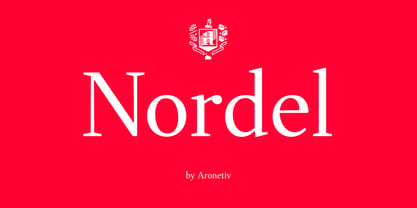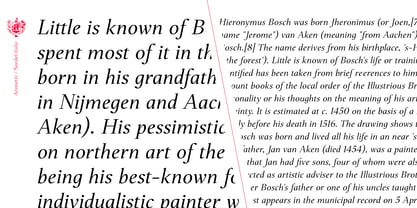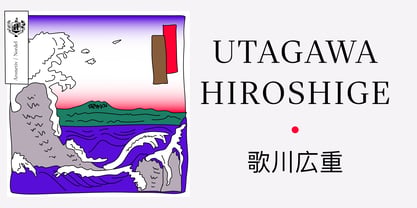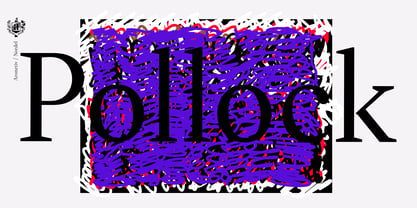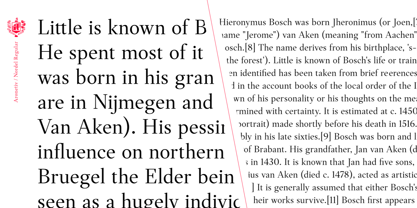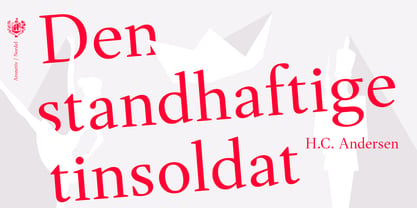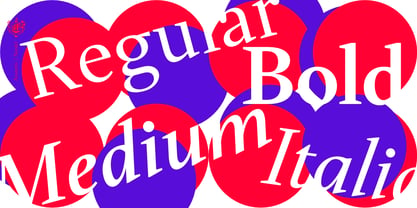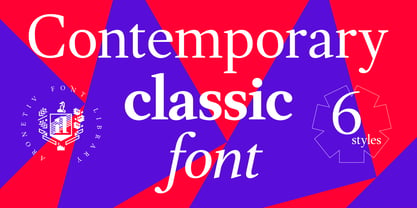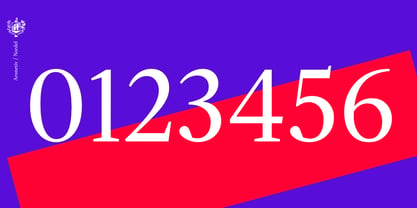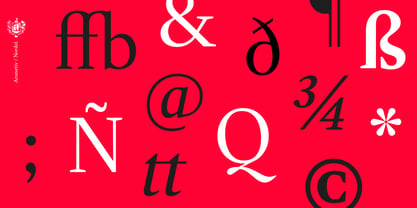
Nordel
Die Schriftfamilie Nordel wurde von Aleksey Popovtsev entworfen und von Aronetiv veröffentlicht. Nordel enthält 6 Stile und Familienpaketoptionen. Mehr über diese Familie
Nordel exemplifies a modern interpretation of classic serif typefaces, drawing inspiration from the timeless elegance of Caslon. It retains the balanced proportions and refined contrast typical of old-style fonts, while introducing sharper details and angular forms that imbue it with a distinctly contemporary edge. This blend of historical depth and clean precision positions Nordel as an ideal choice for editorial design, branding, and various projects that seek a sophisticated yet progressive aesthetic. Its versatility across different weights enhances its applicability, making it suitable for both print and digital platforms.
Aronetiv was founded in 2019 in Kyiv. It employs one person: artist and graphic designer Oleksii Popovtsev. Once Oleksii said that he likes to observe how a letter is born on the border of black and white, as shape and counter-shape create an image. This is his search and inspiration for all his works. Aronetiv develops fonts with Cyrillic and alphabets of Eastern Europe languages, to form a common European culture both in Ukraine and abroad.